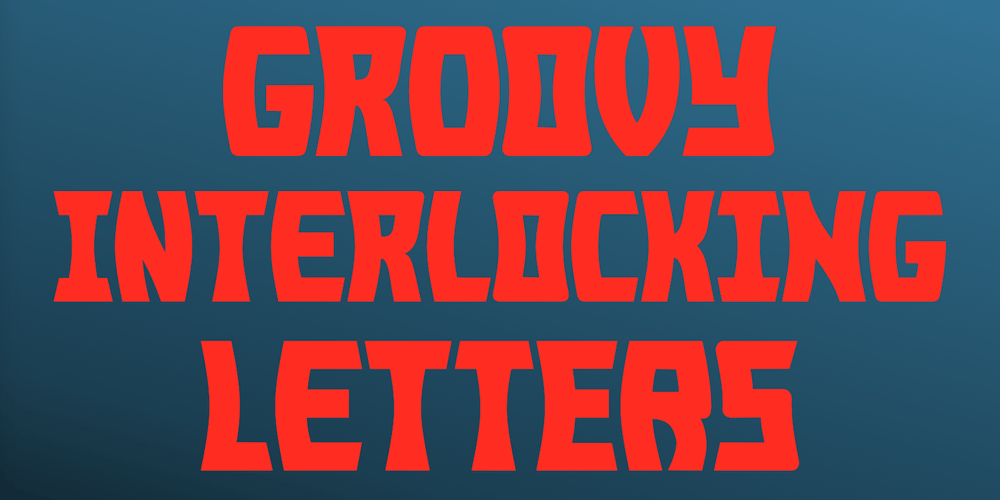
Lentzers
Lentzers font
Lentzers Font Family was designed by Robert Schenk and published by Ingrimayne Type. Lentzers contains 3 styles and family package options. The upper-case letters of Lentzers fit into the shape of a convex lens and the lower-case letters fit into the shape of a concave lens. The typeface was designed to have concave shapes alternate with convex shapes so the letters snuggle together. The OpenType contextual alternatives (calt) feature will automatically make this happen if your word processor supports it. (To get only concave or convex shapes, one must turn off the contextual alternatives feature. With only concave shapes the spaces between letters form thin convex lenses and with only convex shapes the spaces between letters form thin concave lenses. The name of the family was inspired by these lens shapes and also by the name of distant ancestors.)Lentzers is caps only. It comes in three weights: light, regular, and bold. It is eye-catching for posters and titles and poorly suited for text.